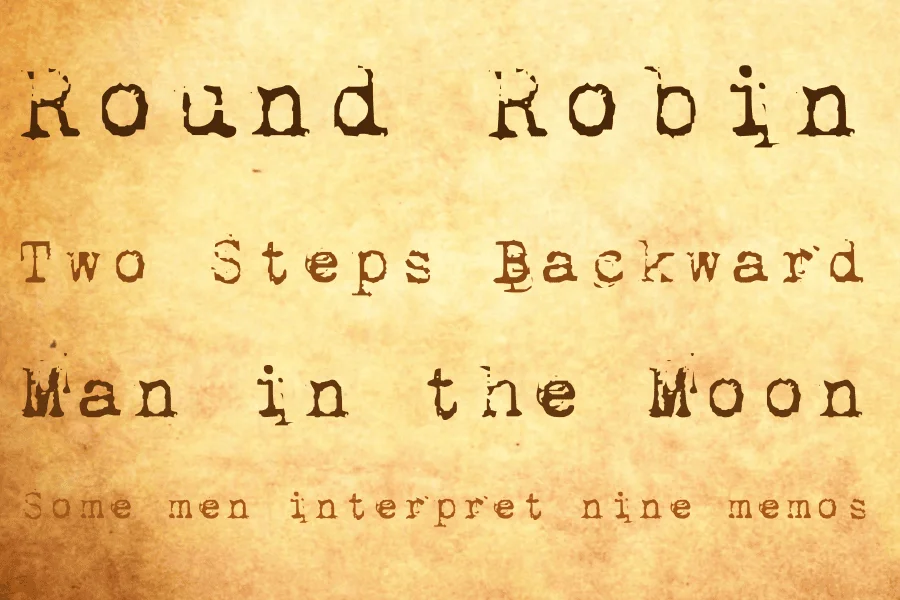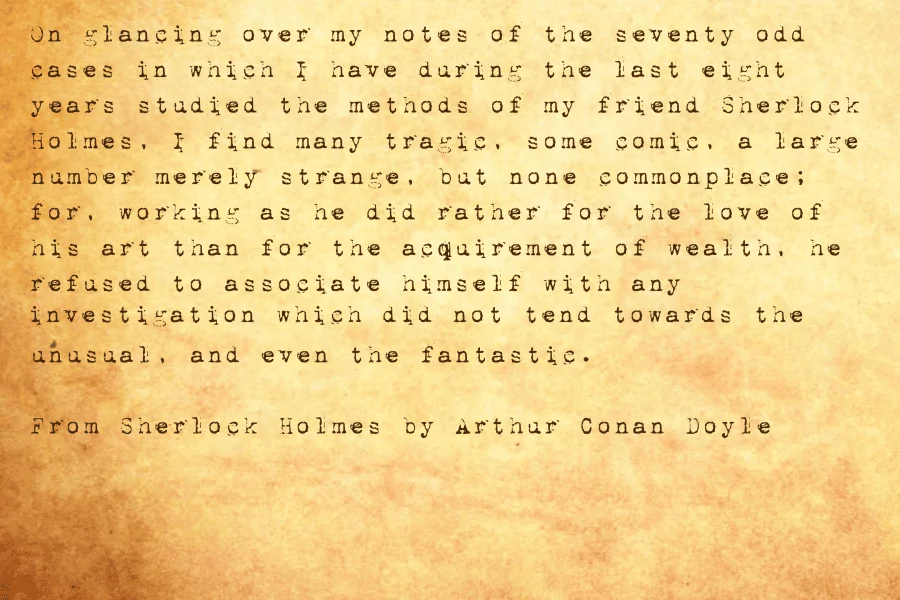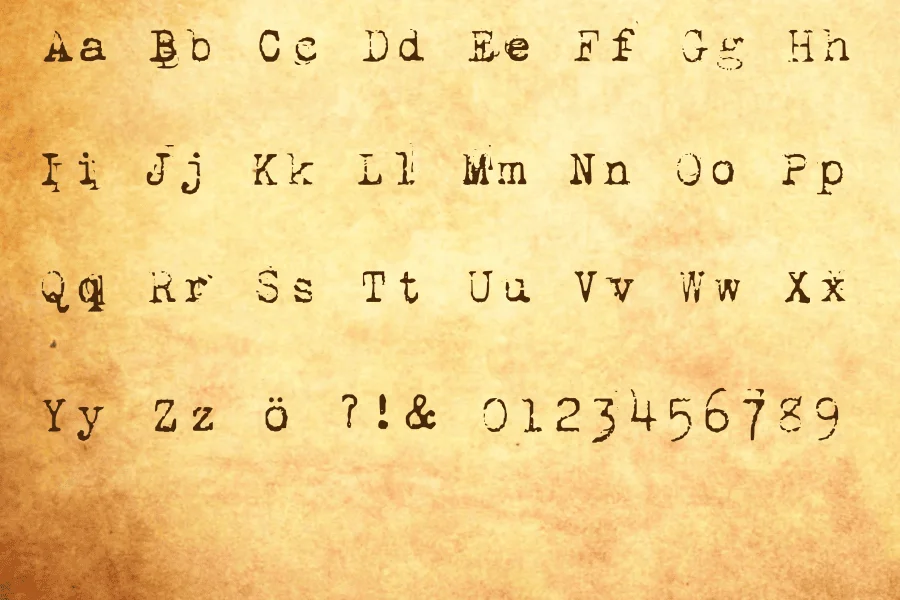
1942 report is a typewriter‑style, vintage/retro typeface with a distinctly distressed, worn‑out aesthetic, as if it were stamped on old documents or typed on a mechanical typewriter decades ago.
The letterforms are monospaced (each character occupies the same horizontal width), which gives it a structured, mechanical rhythm. The letters (both uppercase and lowercase), numbers, and punctuation share the same treatment: they appear somewhat rough around the edges, with slightly irregular outlines and textured, “ink‑smudged” fills suggesting age or wear. Because of this texture and the consistent “typewritten” spacing, the font evokes the feeling of old reports, vintage memos, wartime logs, or archival documents.
Given its style and tone, 1942 report works especially well for headlines, posters, flyers or packaging when you want a nostalgic, historical, gritty or analog look. It’s a good match for vintage-themed branding, retro‑style poster design, book covers evoking old documents, or even film‑ or game‑artwork that references mid‑20th‑century eras. Because of its rough texture, it’s less suited to long passages of body text — it shines as a display or decorative typeface.